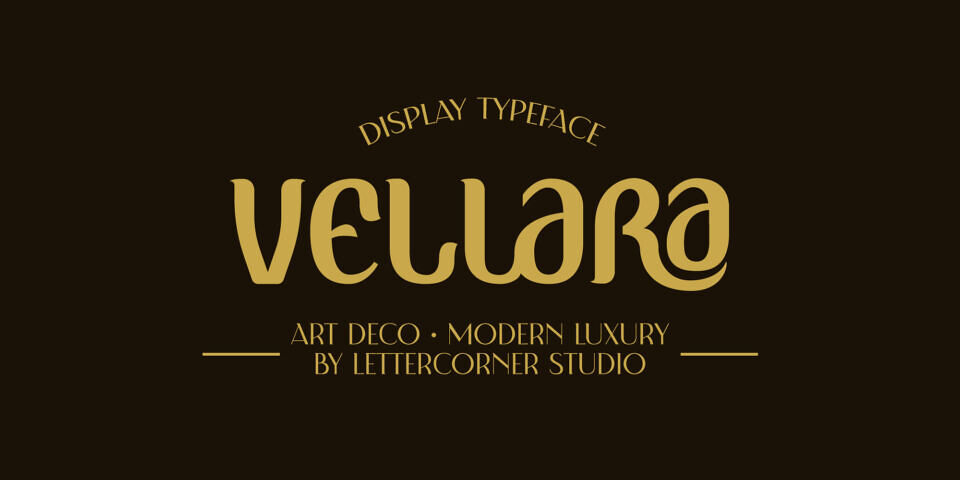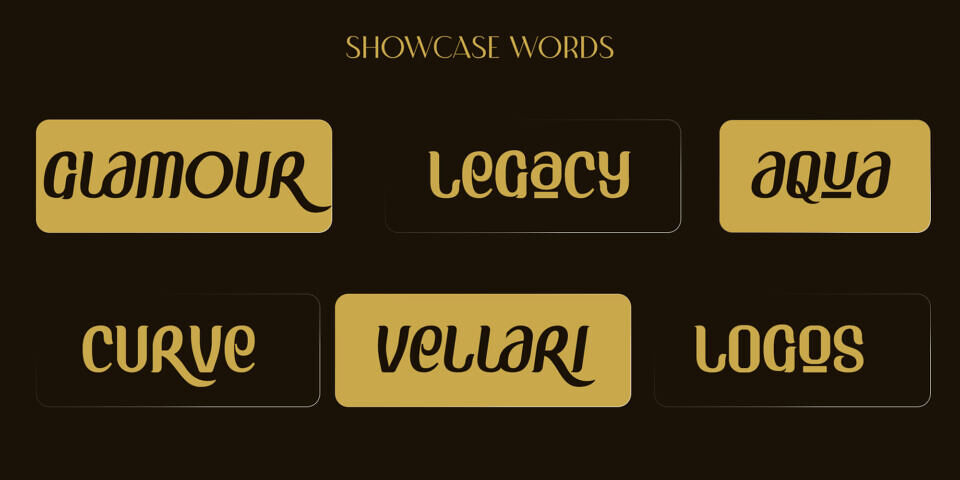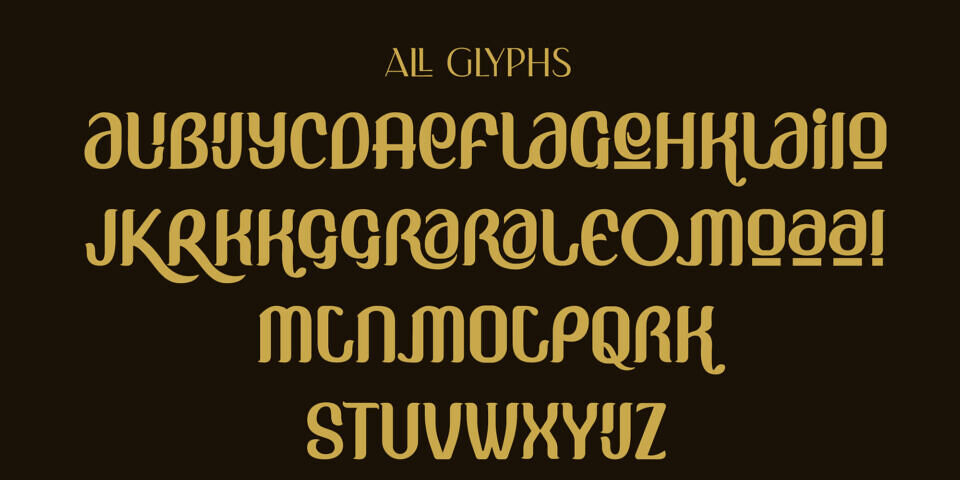
Vellara Font
Vellara is a bold display typeface born from the golden age of Art Deco — reimagined for the modern era. Each letterform carries the weight of architectural grandeur and the grace of haute couture, making it the perfect voice for brands that refuse to whisper.
Inspired by the ornate geometry of 1920s typography, the sweeping curves of mid-century fashion illustration, and the silent confidence of luxury editorial design, Vellara speaks in a language that is both timeless and unmistakably now. Use it for luxury fashion labels, editorial spreads, premium packaging, brand logos, and anywhere your work demands presence.